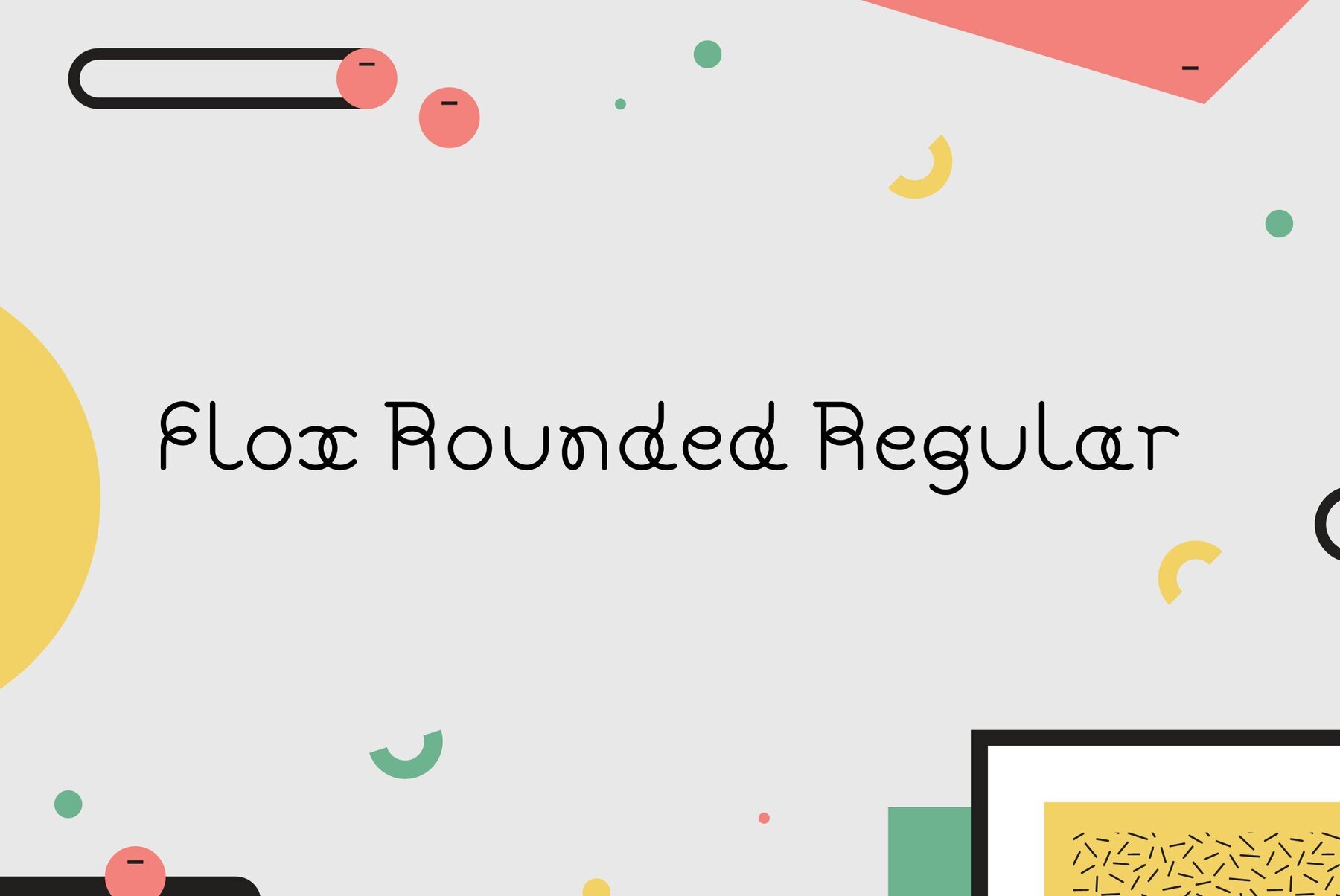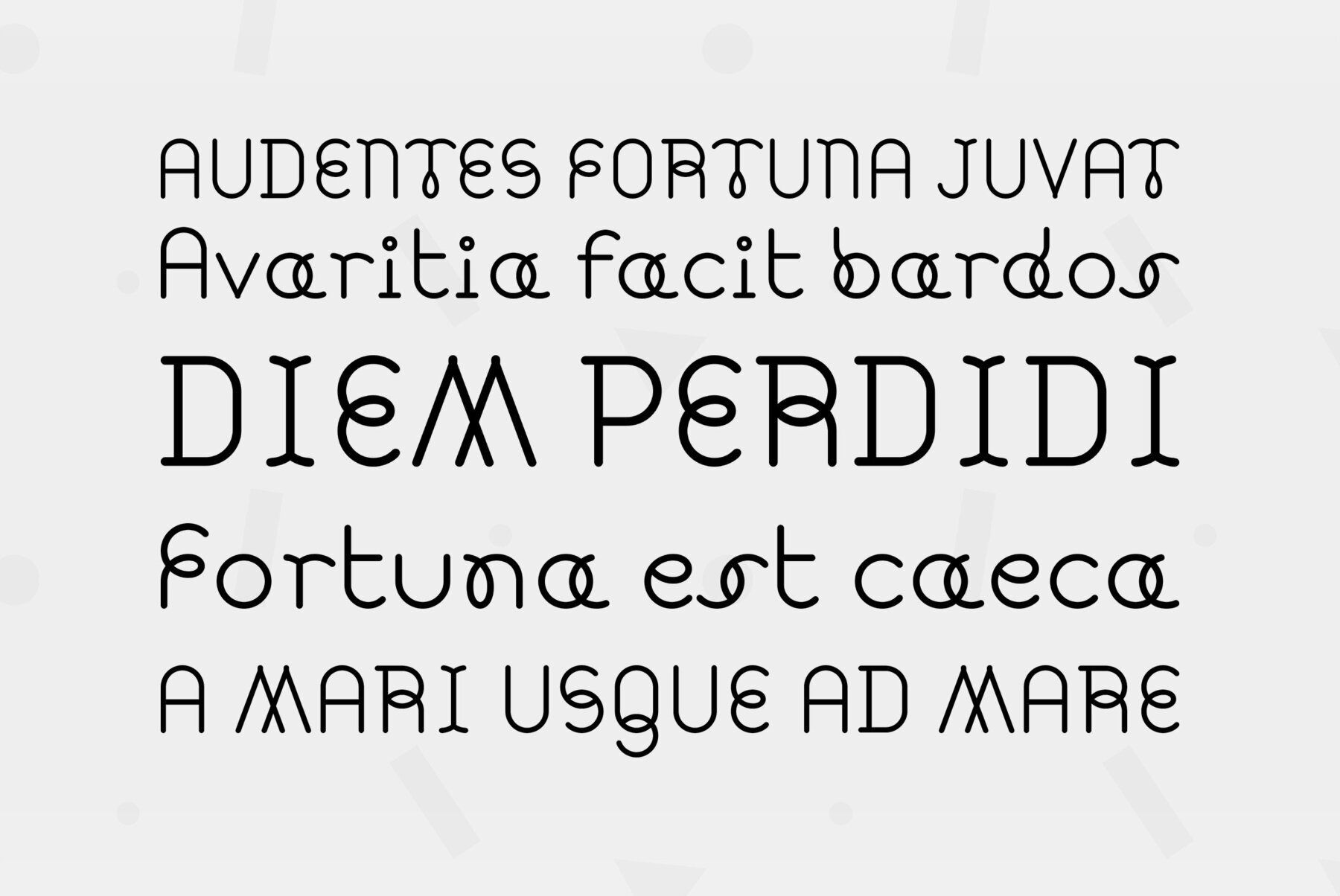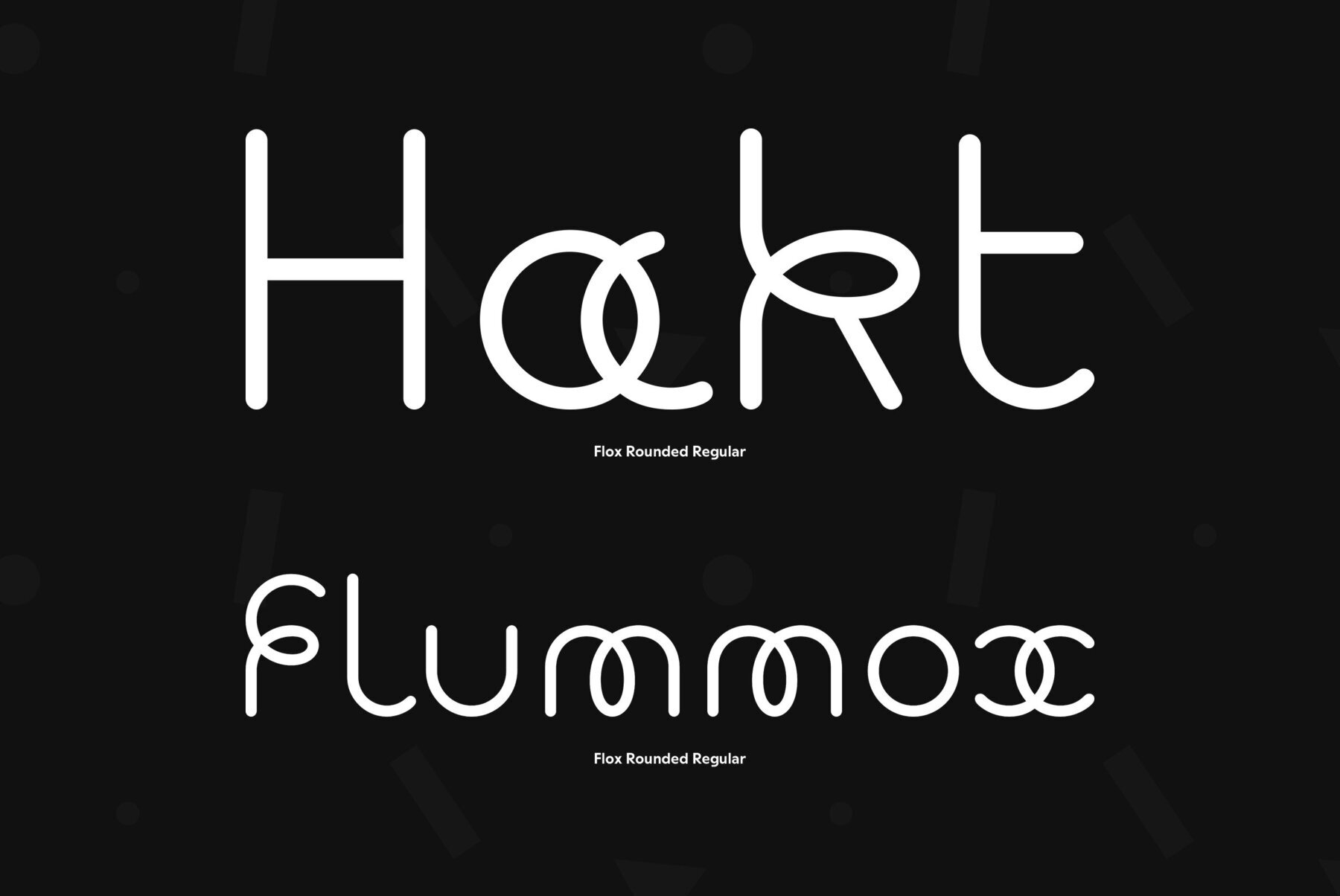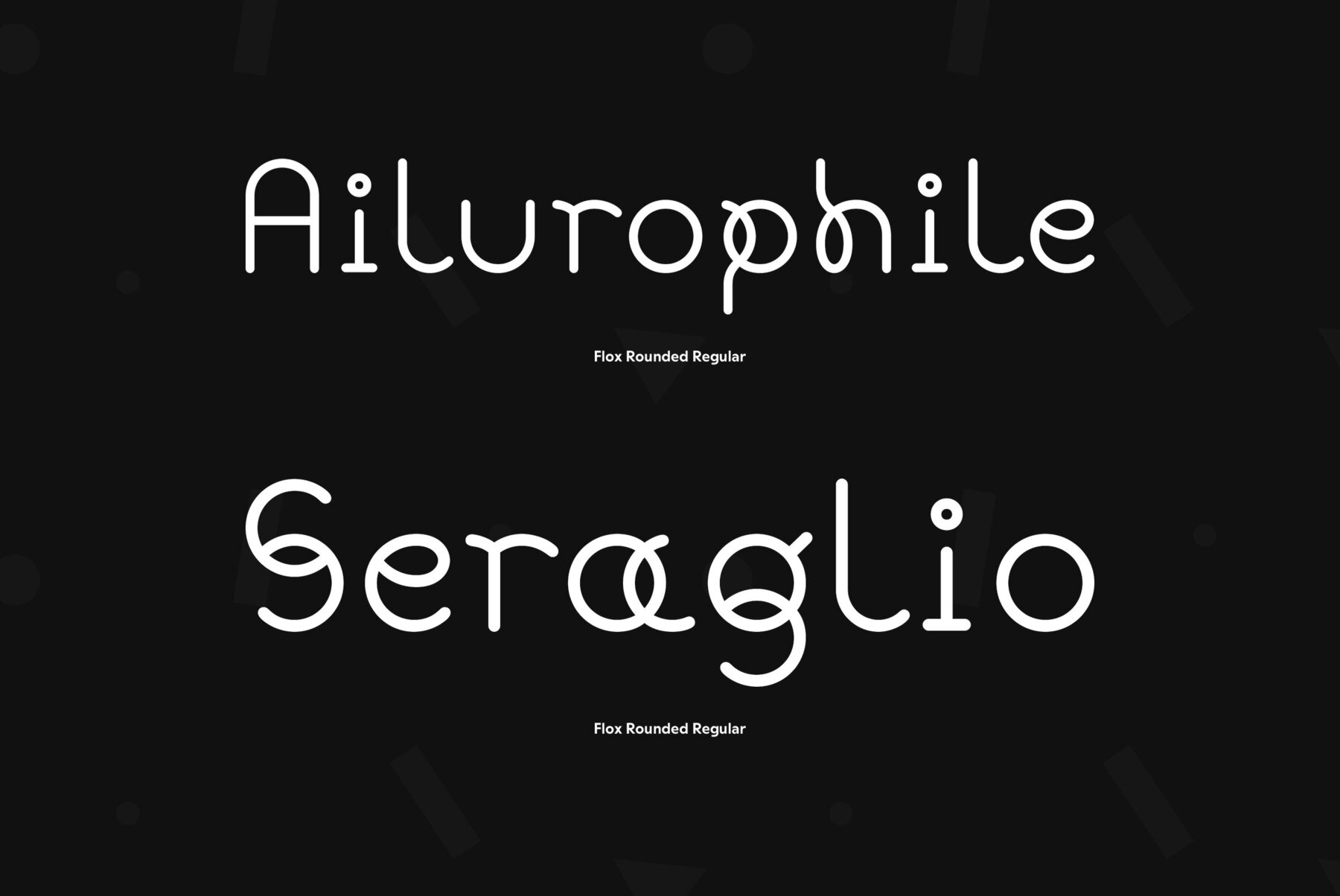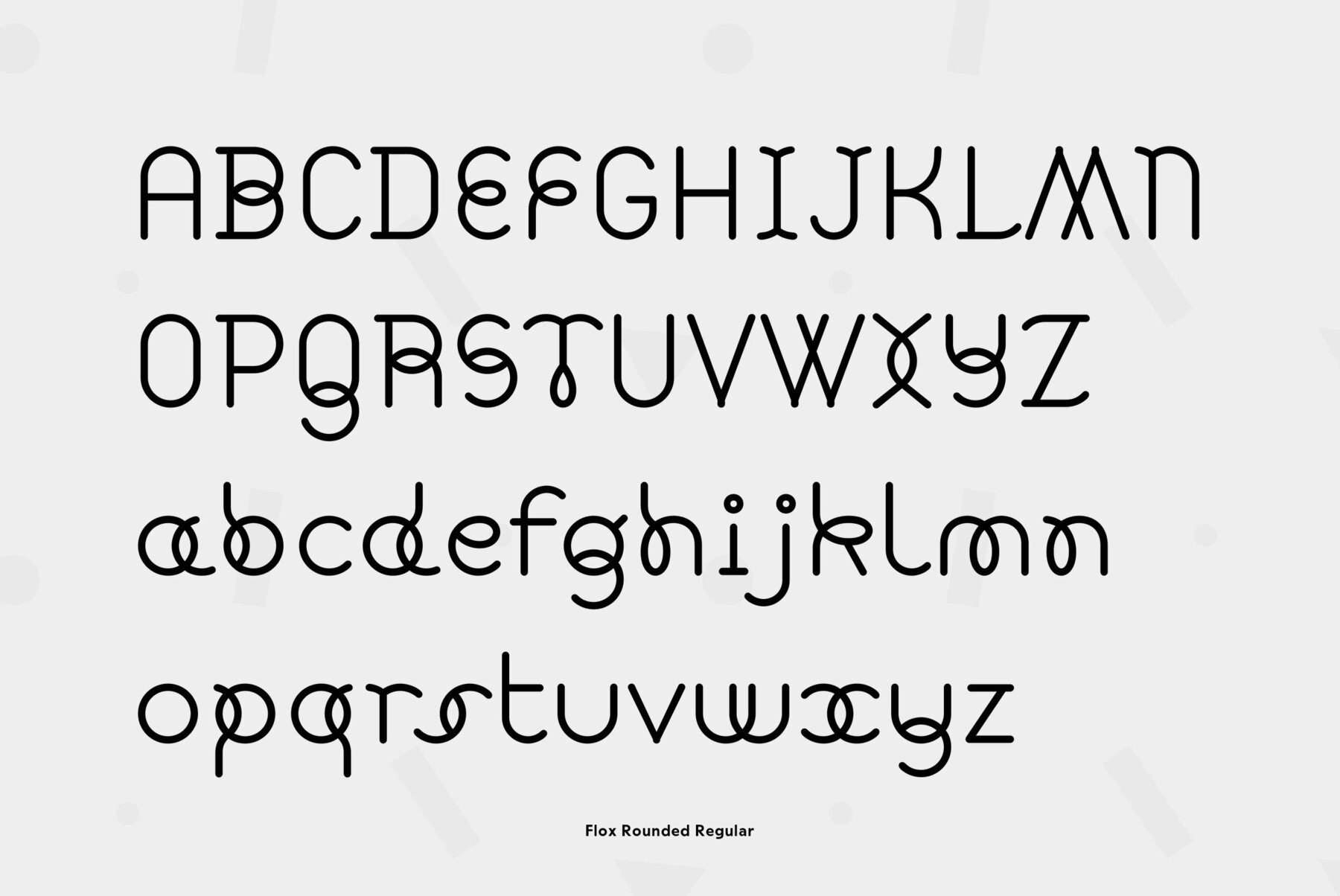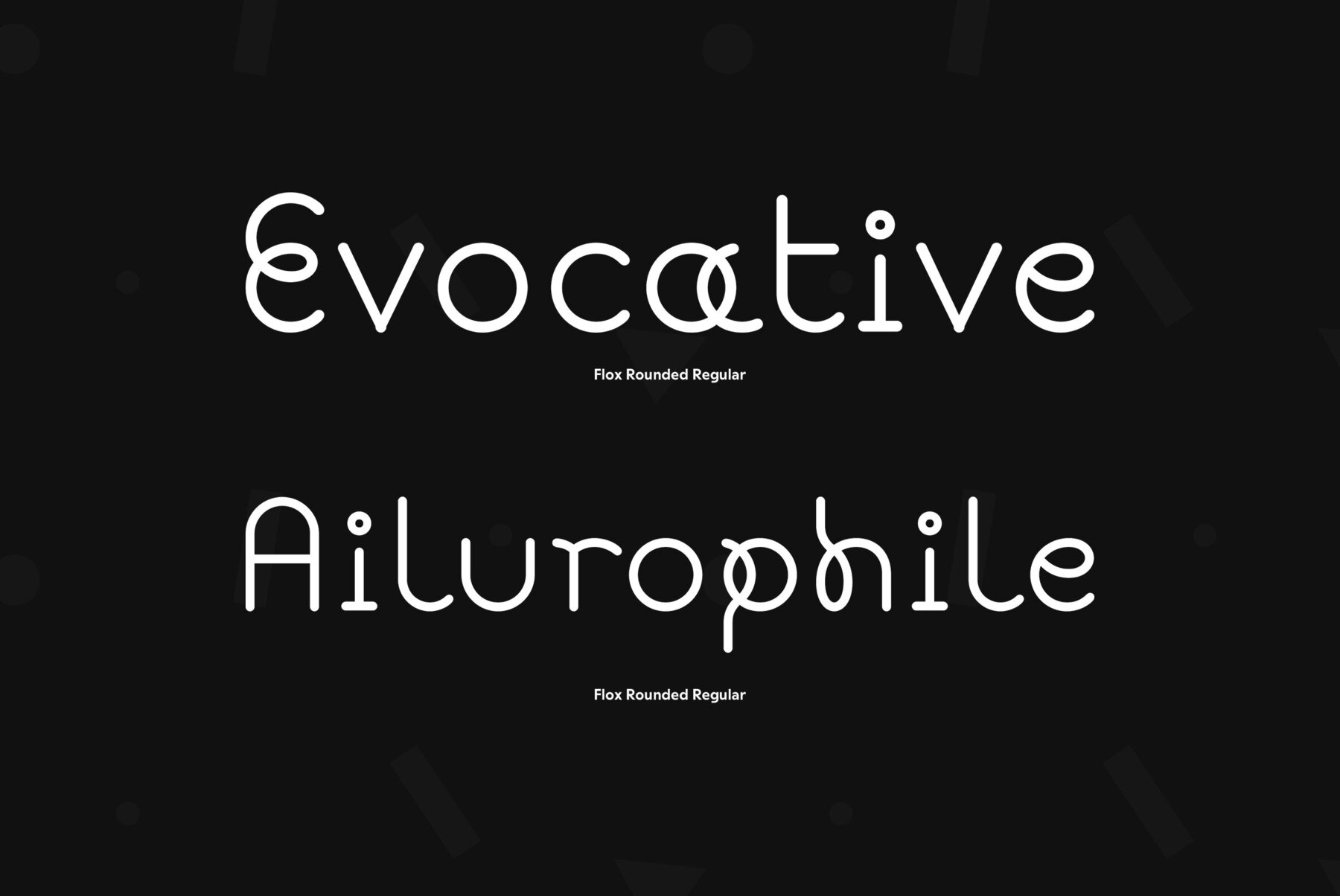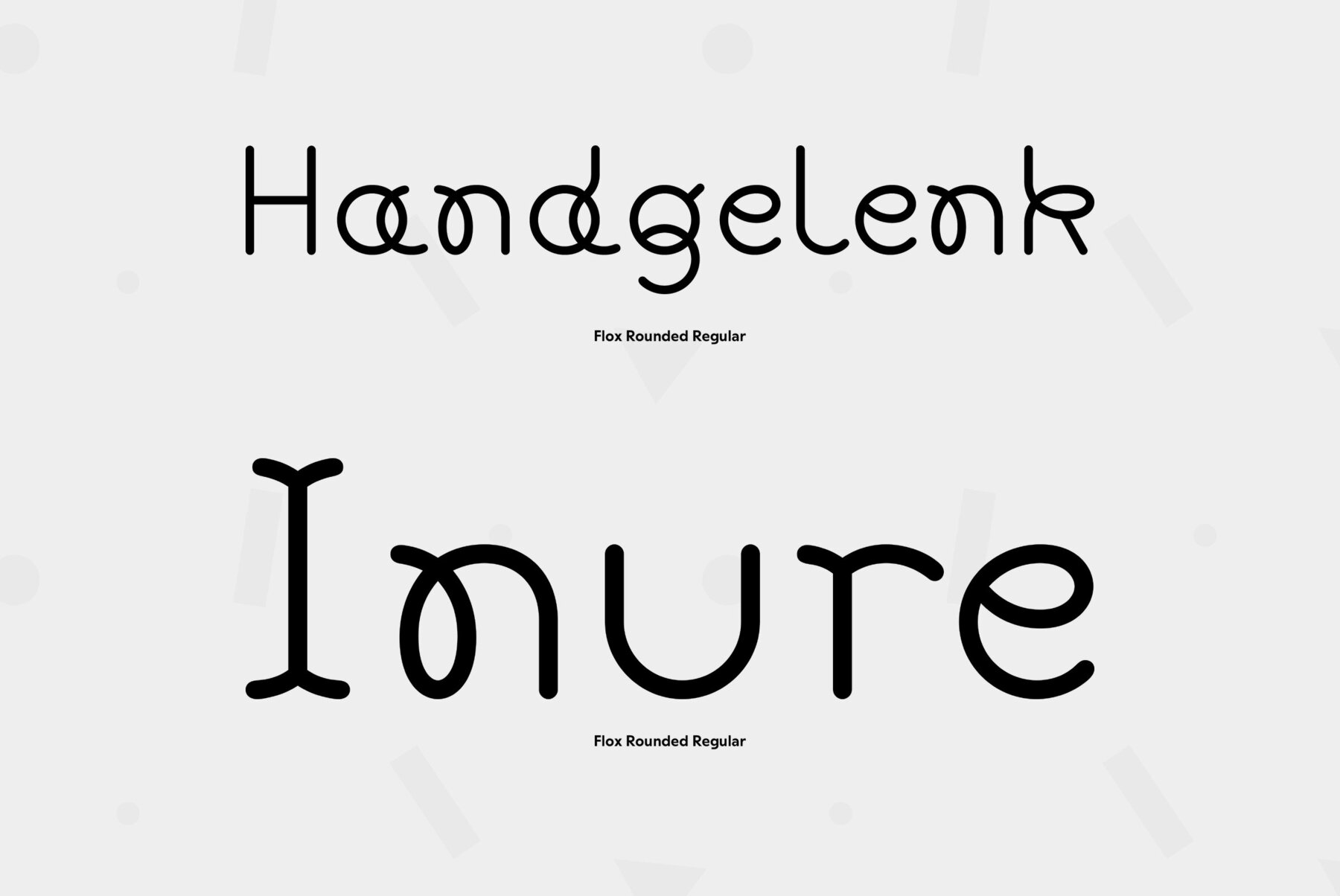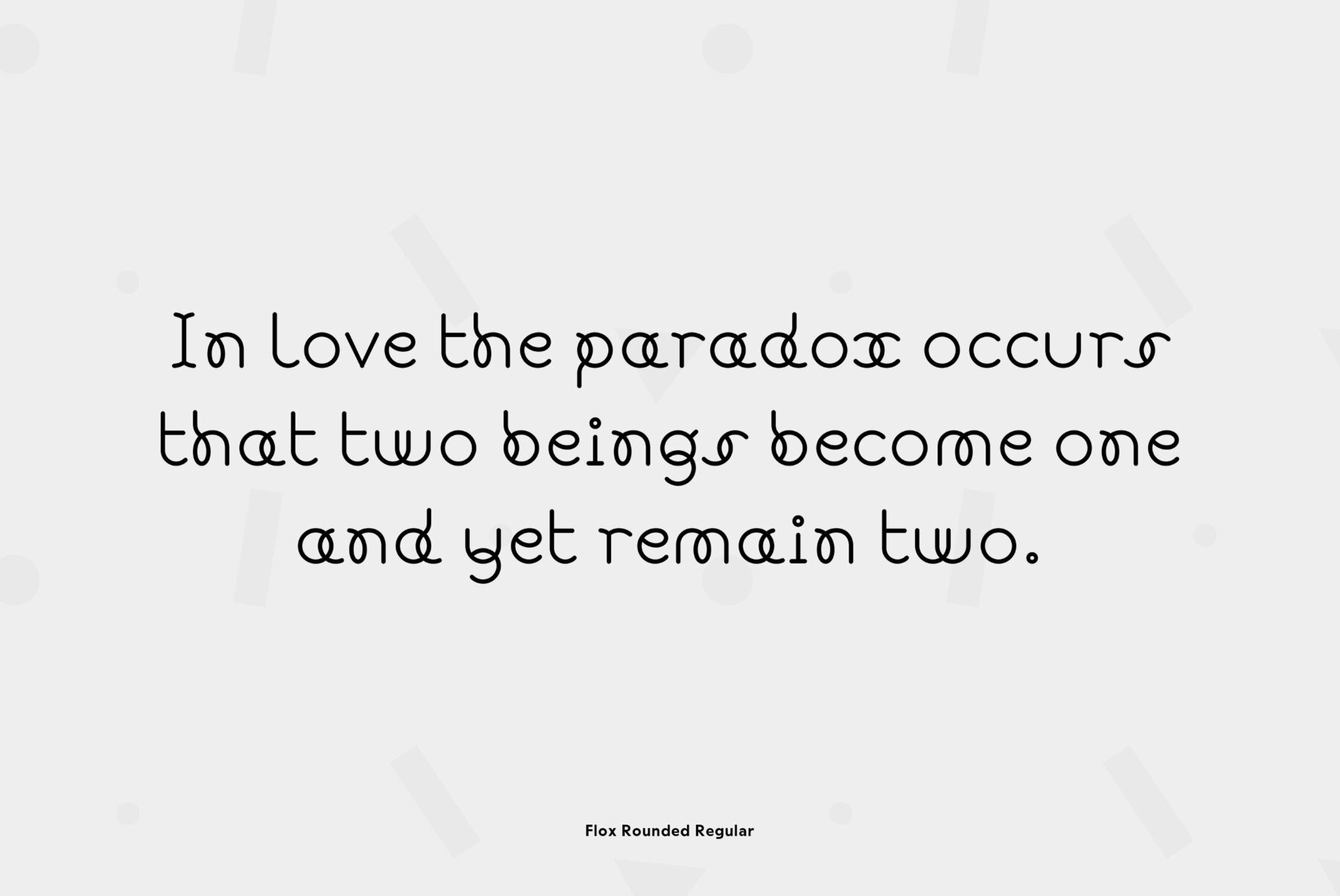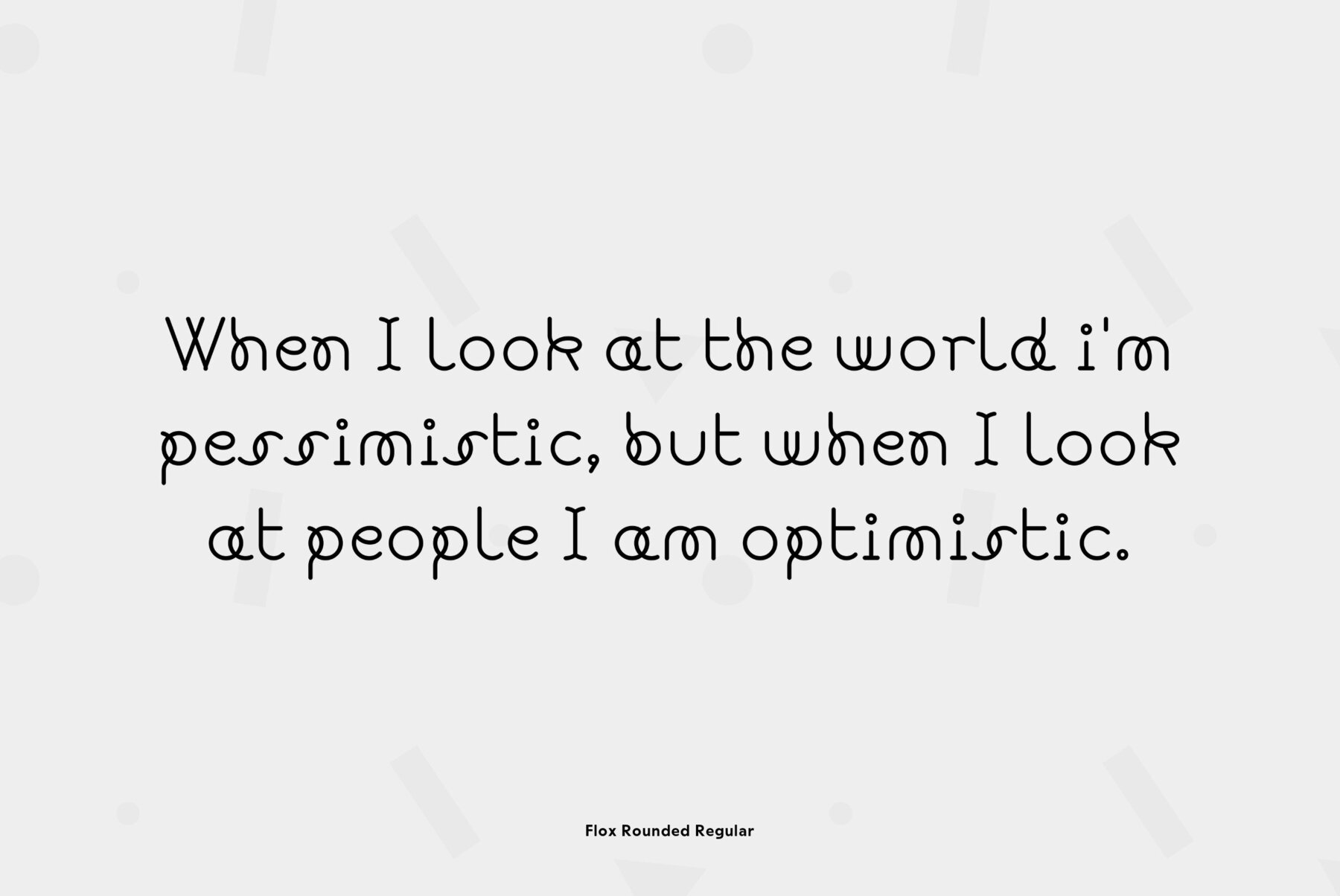
Flox Rounded
Flox Rounded display typeface was designed in 2000 by Vladimir Pavlikov as alternative 'soft' variant of Flox face. In contrast to Flox there are rounded stroke ends and curved shapes in most of characters. The project was aimed to create a decorative vivid alphabet of geometric shapes. Cyrillic was developed in 2005. For use in advertising and display typography. Licensed by ParaType in 2005.